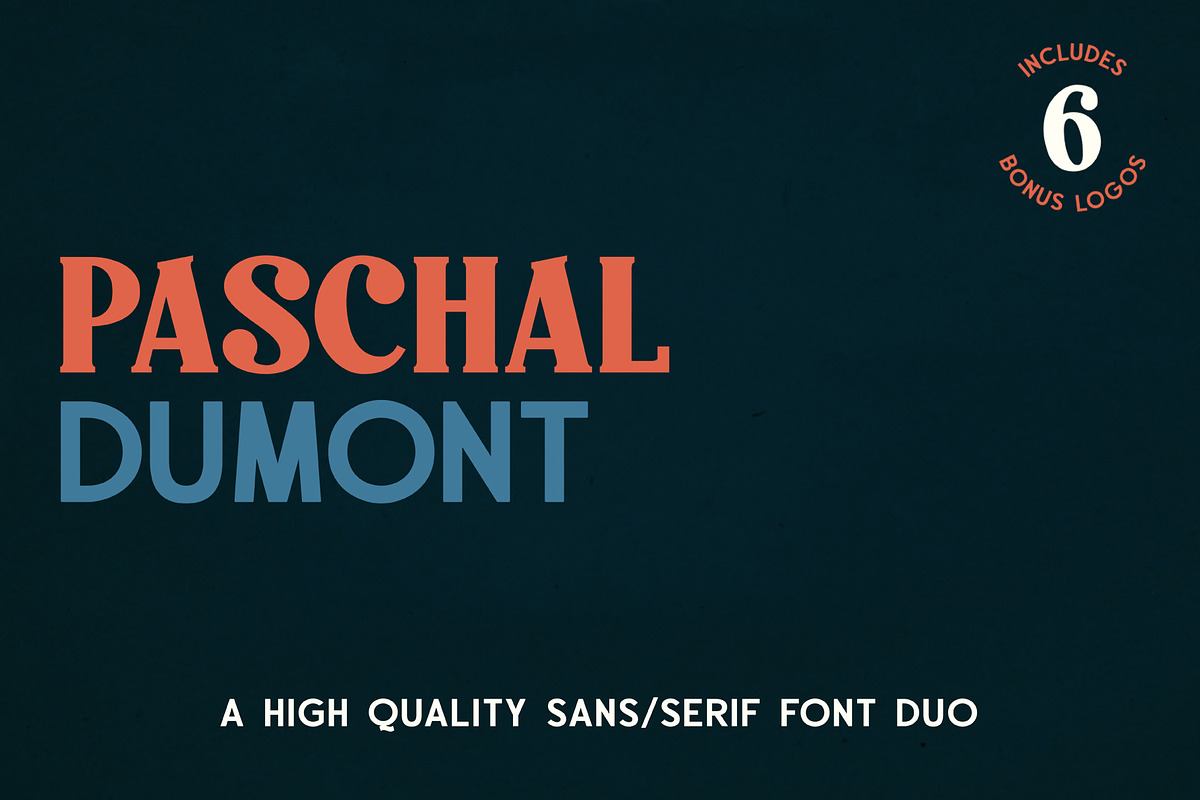
Paschal Dumont – A Modern Font Duo Free Download is a sophisticated typeface pair that blends clean contemporary elegance with timeless charm. Please note, you are required to purchase this font duo for commercial use. It is available for free download for testing and personal projects only.
This duo features a refined serif and a minimalist sans-serif, crafted to work beautifully together in branding, editorial design, wedding invitations, logos, and upscale packaging. The contrast between styles allows for dynamic combinations while maintaining visual harmony.